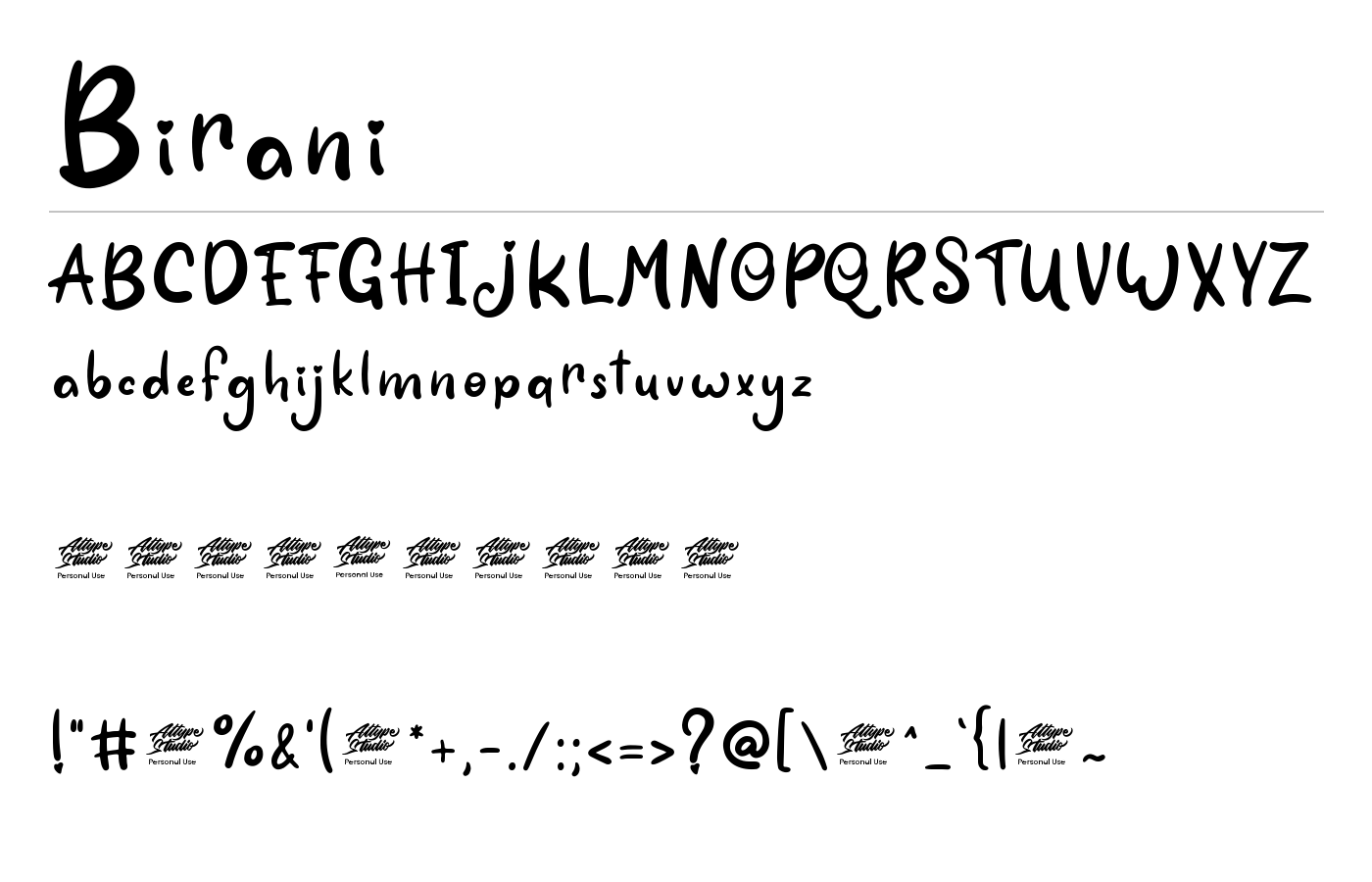
Birani is a playful, handwritten sans serif font characterized by its casual, rounded letterforms and charming, heart-shaped dots on the lowercase "i"s. With a slightly irregular, friendly style and medium weight, it offers a warm, approachable feel perfect for children's materials, informal invitations, and creative branding that seeks a personal touch. Its unique, lively character makes it ideal for projects needing a fun and inviting personality.
Birani Font
About Birani Font
| Designer | Fadli Ramadhan Iskandar |